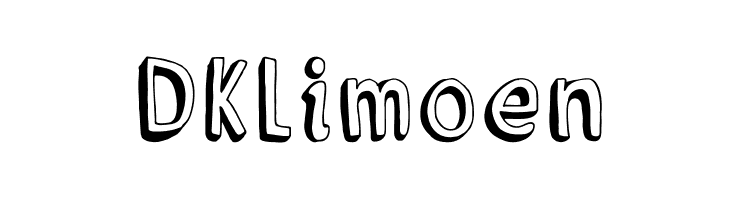
( Fadhil Aqsa - creativemarket.com/Meutuwah )
A whimsical and elegant script font with decorative swirls and fluid cursive forms.
( Fonts by Casady & Greene )
A medieval and gothic style font with sharp, angular lines and pointed serifs.
( Fonts by Luis Angel Uribe - luisangeluribe.wordpress.com )
A modern, minimalist font with thin, elongated strokes and geometric influences.
( Fonts by www.kimberlygeswein.com - Kimberly Geswein )
A playful, rounded handwritten font with a friendly and approachable style.
( Fonts by Woodcutter )
A playful, bold font with a dotted texture and rounded characters.
( bogstav - www.bogstav.com )
A playful, hand-drawn font with a quirky and informal style.